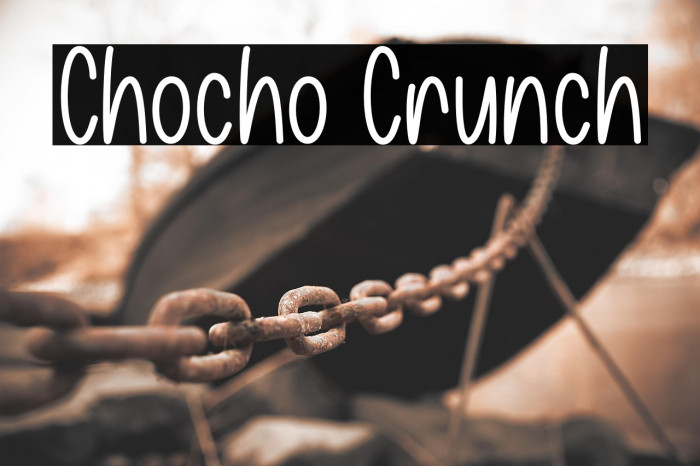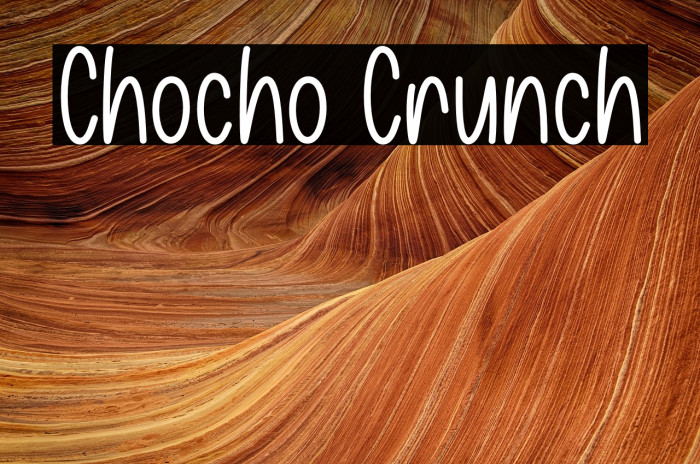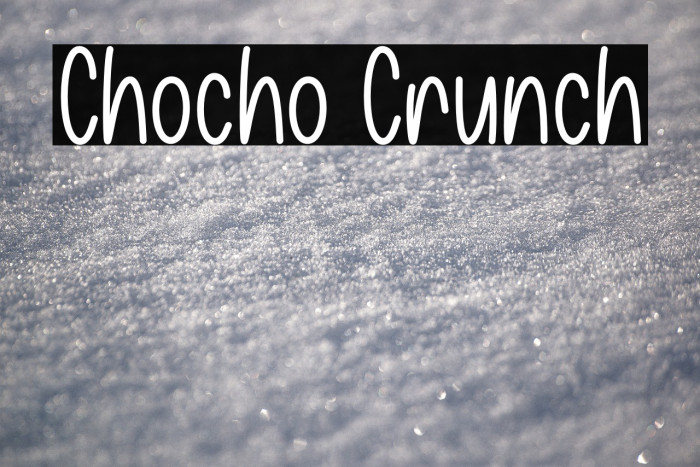
Chocho Crunch Font
Chocho Crunch Description
A playful, handwritten font with a casual and friendly appearance, featuring rounded edges and consistent stroke width.
| Use Case | Logos, Headlines, Informal text |
| Proposed Projects | Greeting cards, children's books, casual branding. |